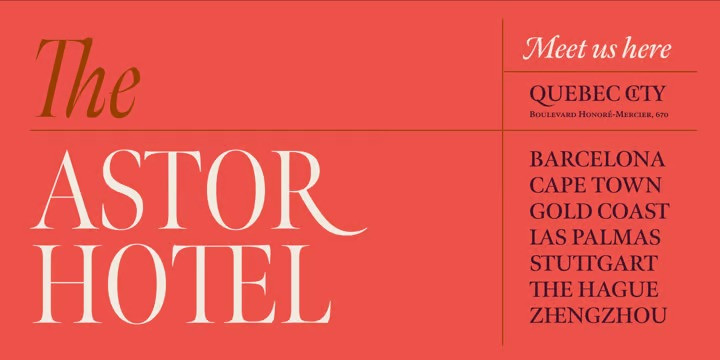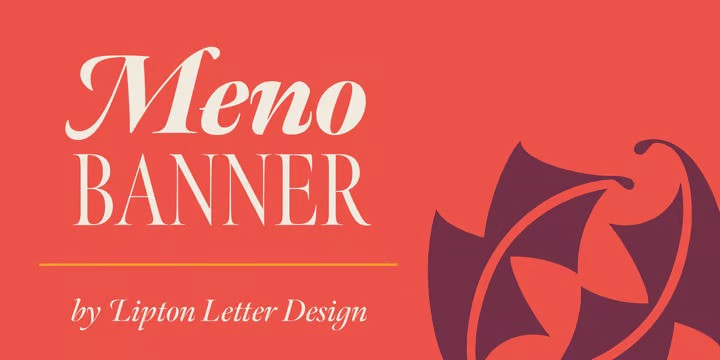
Meno Banner Font
Meno Banner Font Family, Richard Lipton designed Meno in 1994 as a modest yet elegant workhorse serif family in seven styles. In 2016, he expanded this spirited oldstyle into a 78–style superfamily. The romans gain their energy from French baroque forms cut late in the 16th century by Robert Granjon, the italics from Dirk Voskens’ work in 17th-century Amsterdam. Meno consists of three carefully drawn optical sizes—Text, Display, and Banner, with Condensed and Extra Condensed widths added to the latter two cuts. Steadfast in text settings, Meno is replete with alternate forms, swashes, and other enhancements that showcase Lipton’s masterful calligraphic hand. The series offers a complete solution for achieving high-end editorial typography.